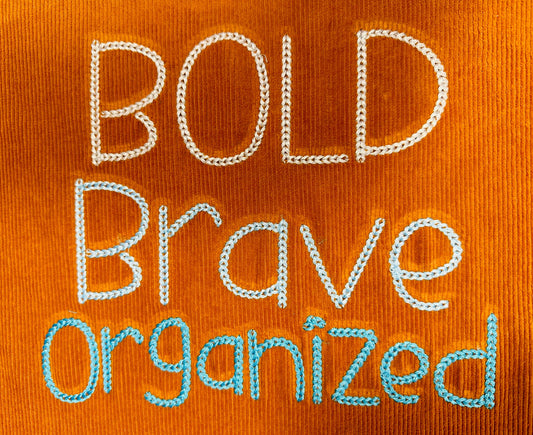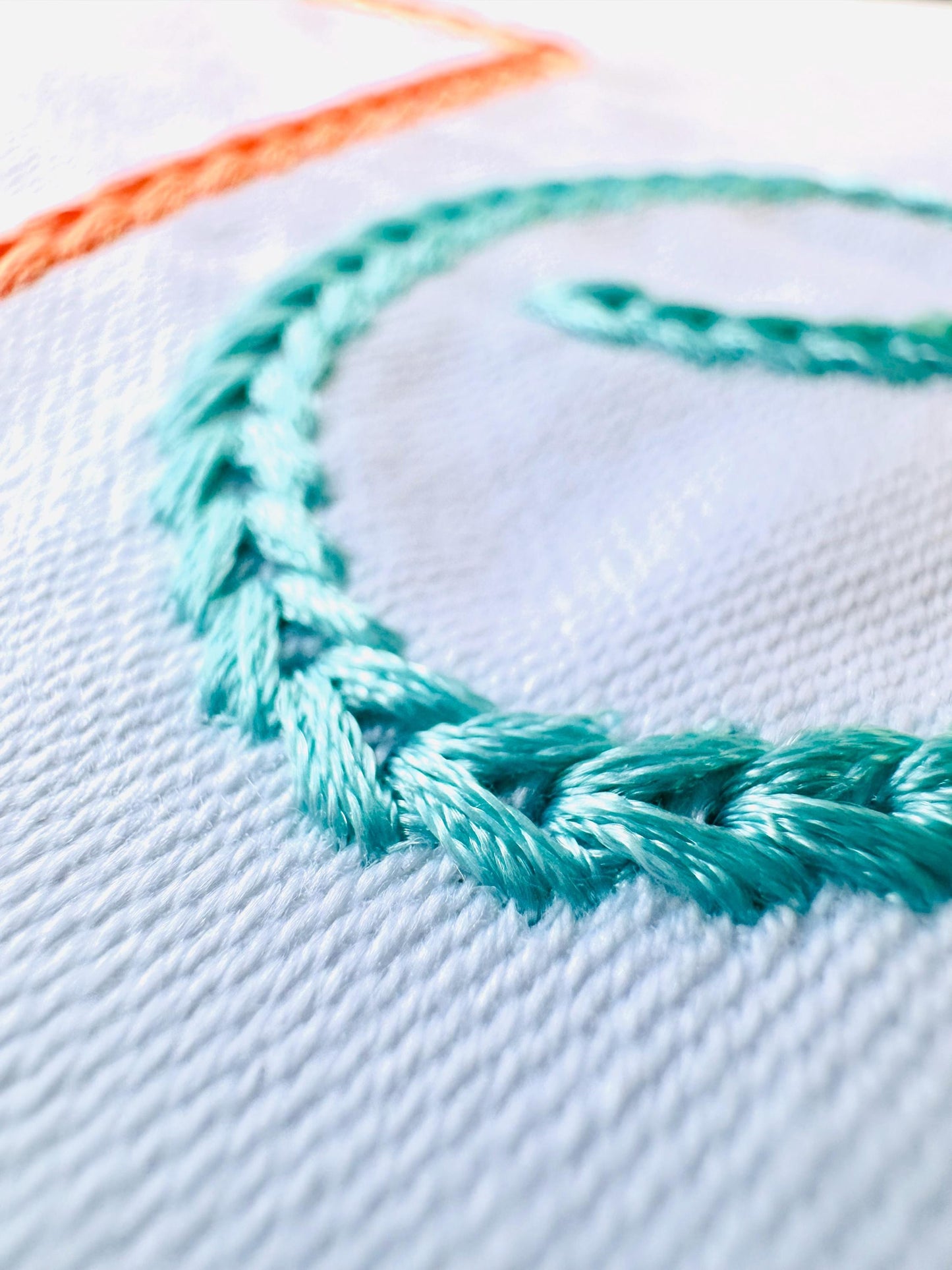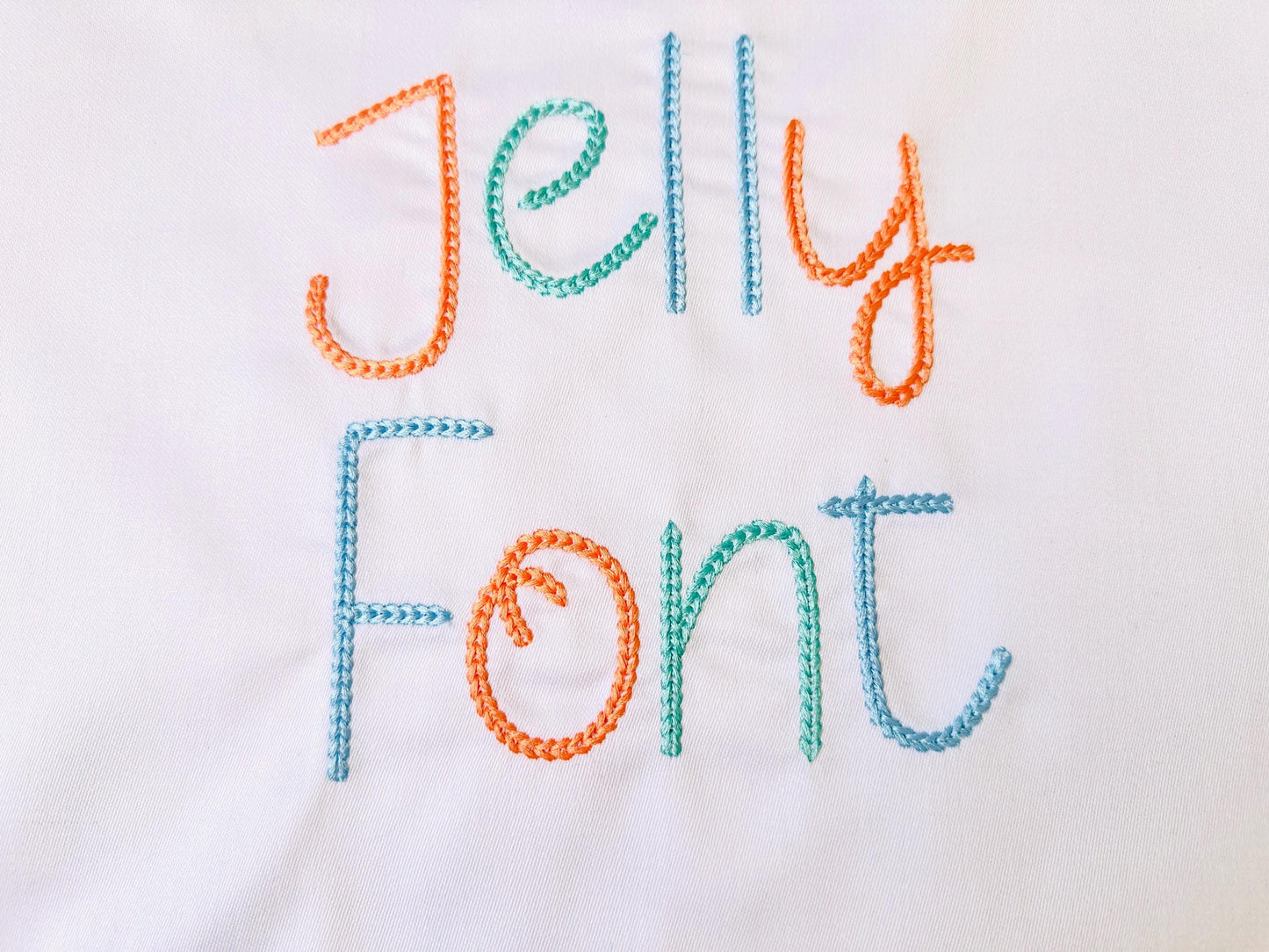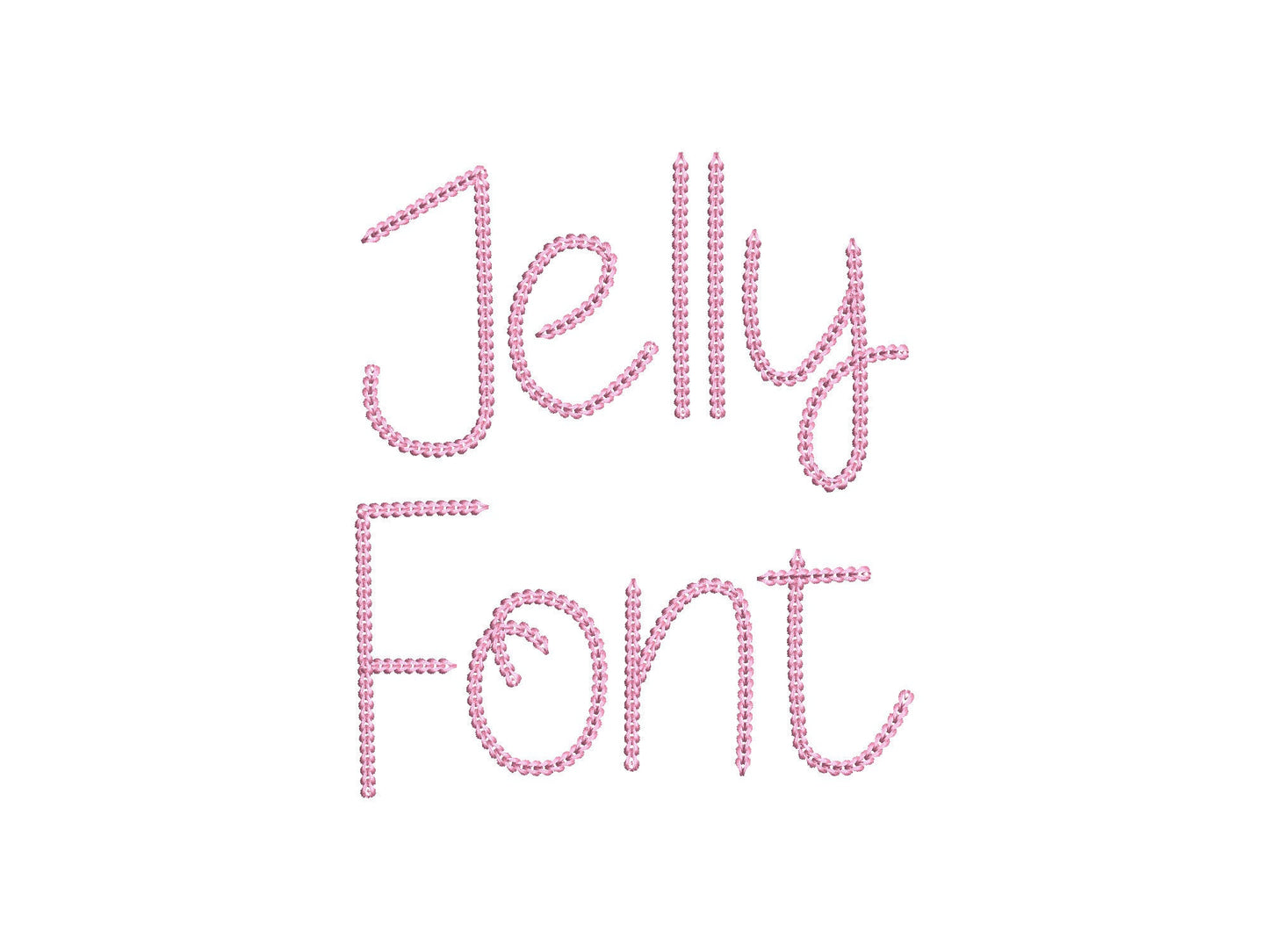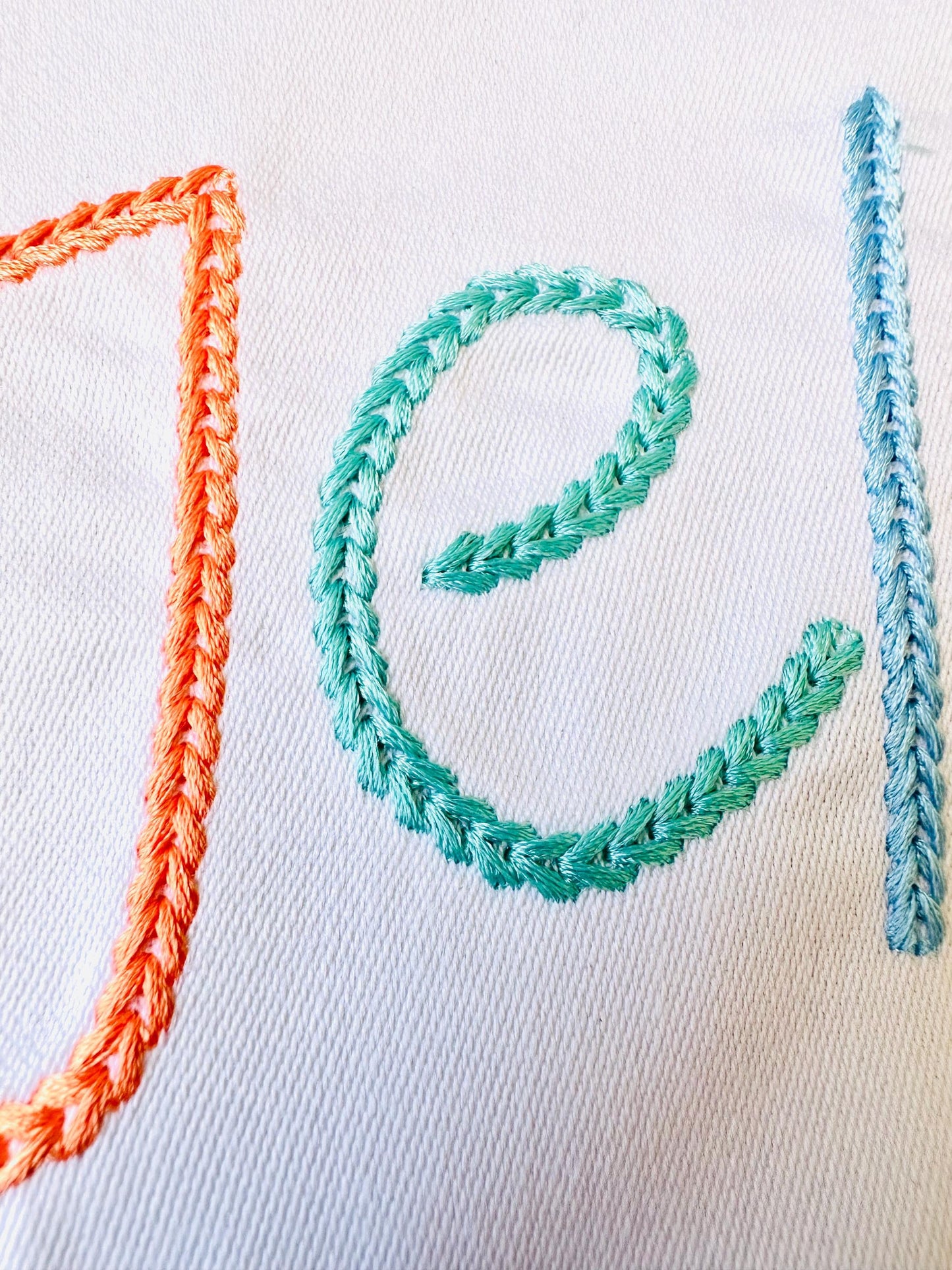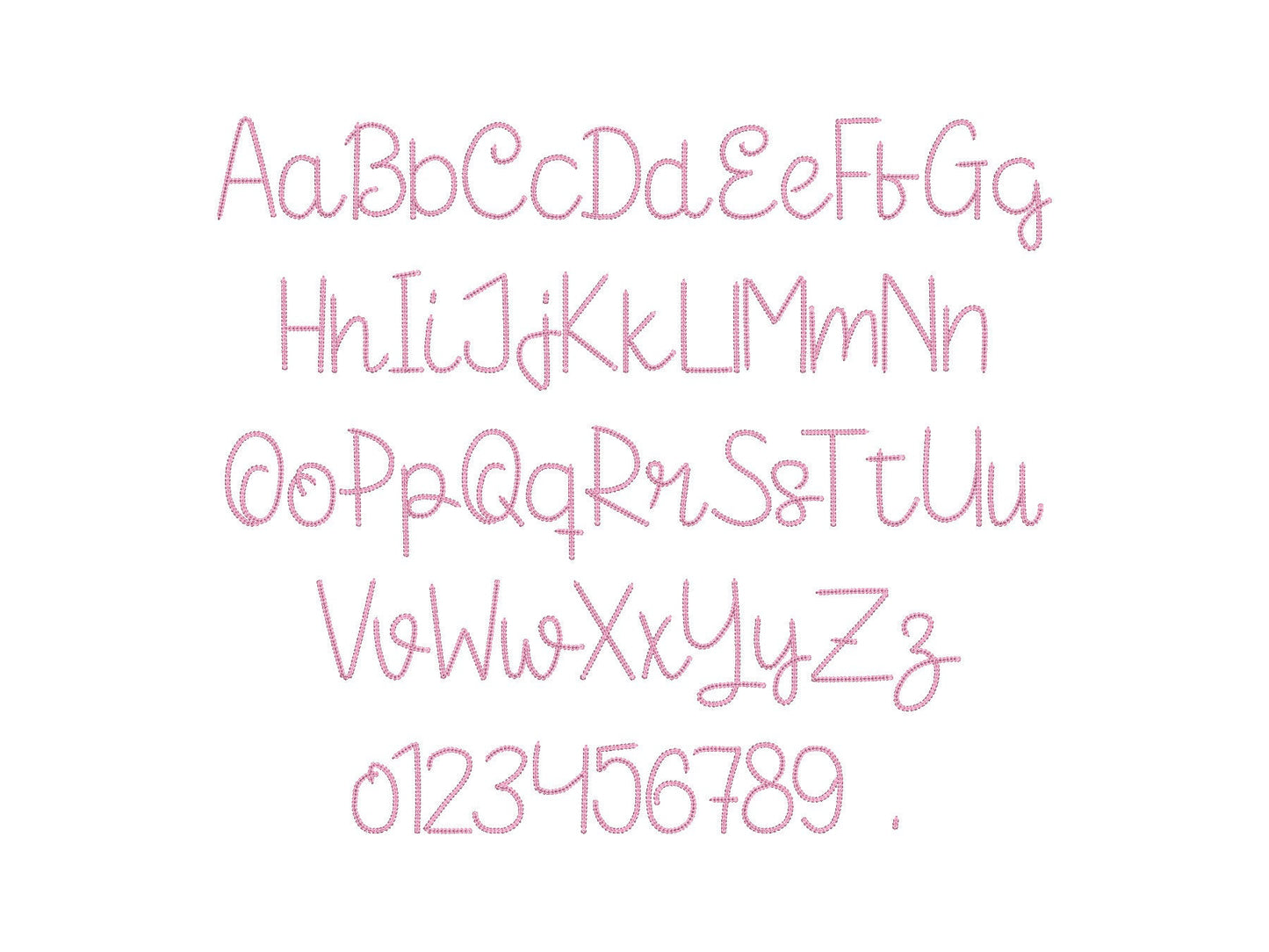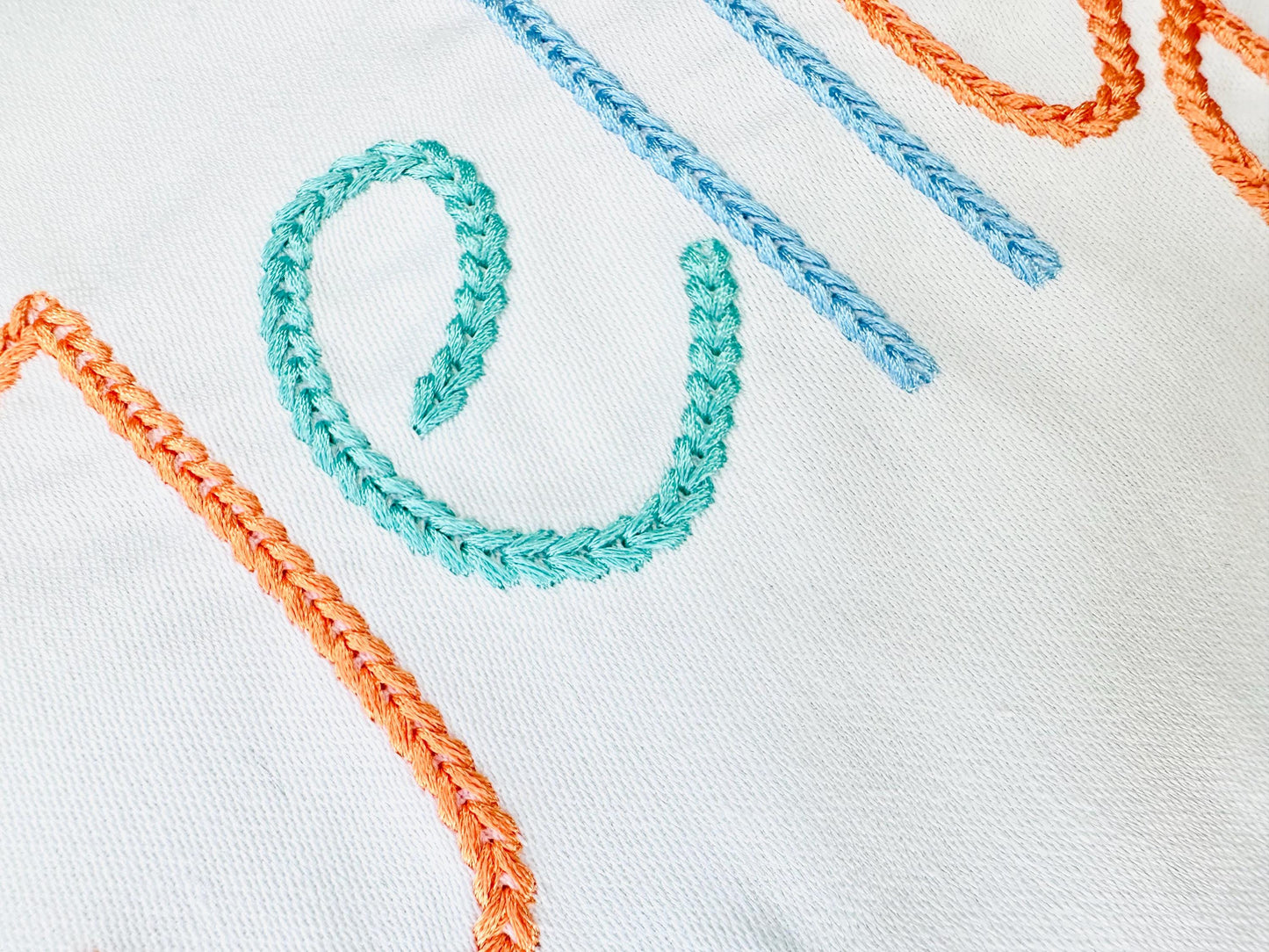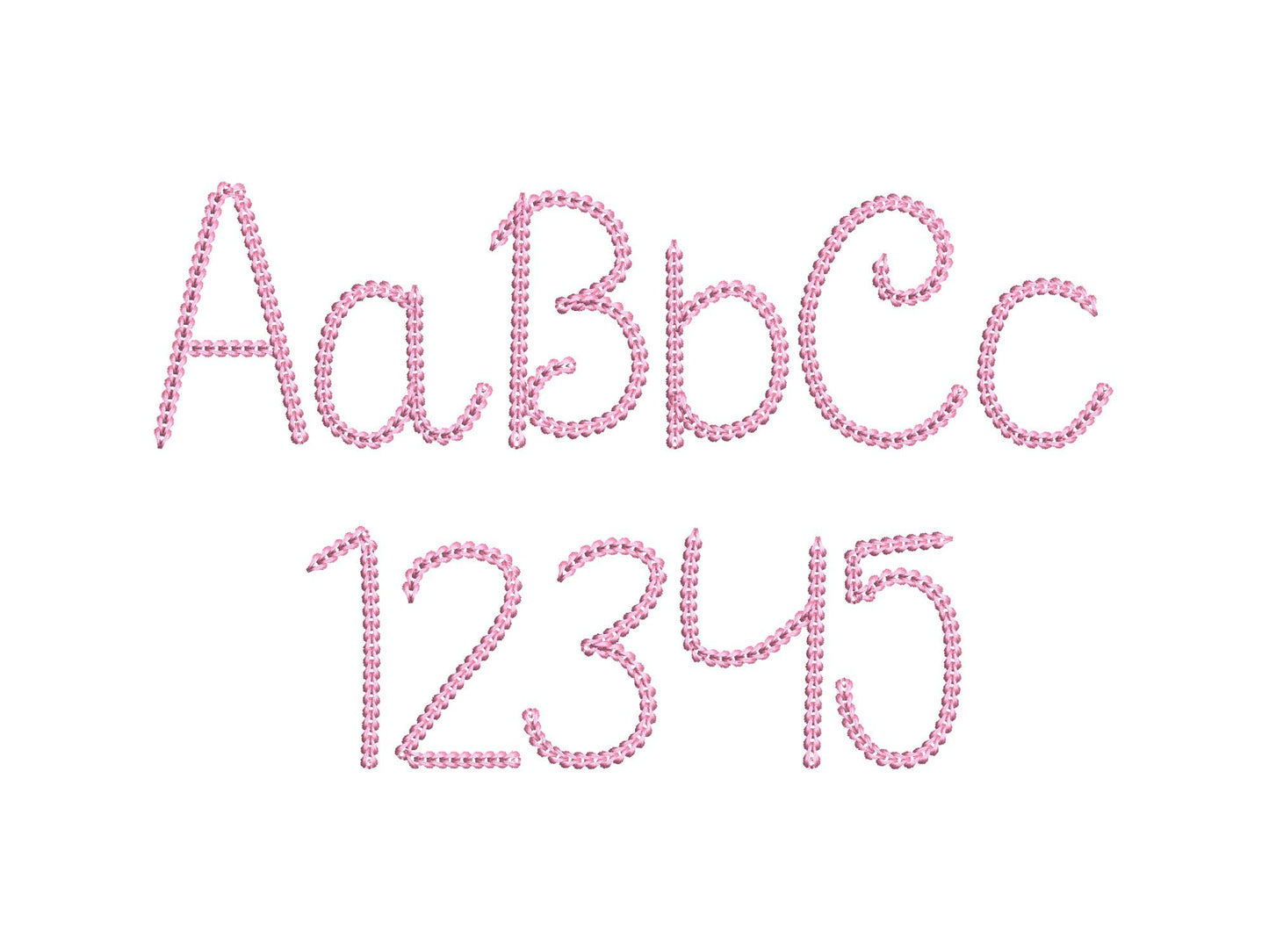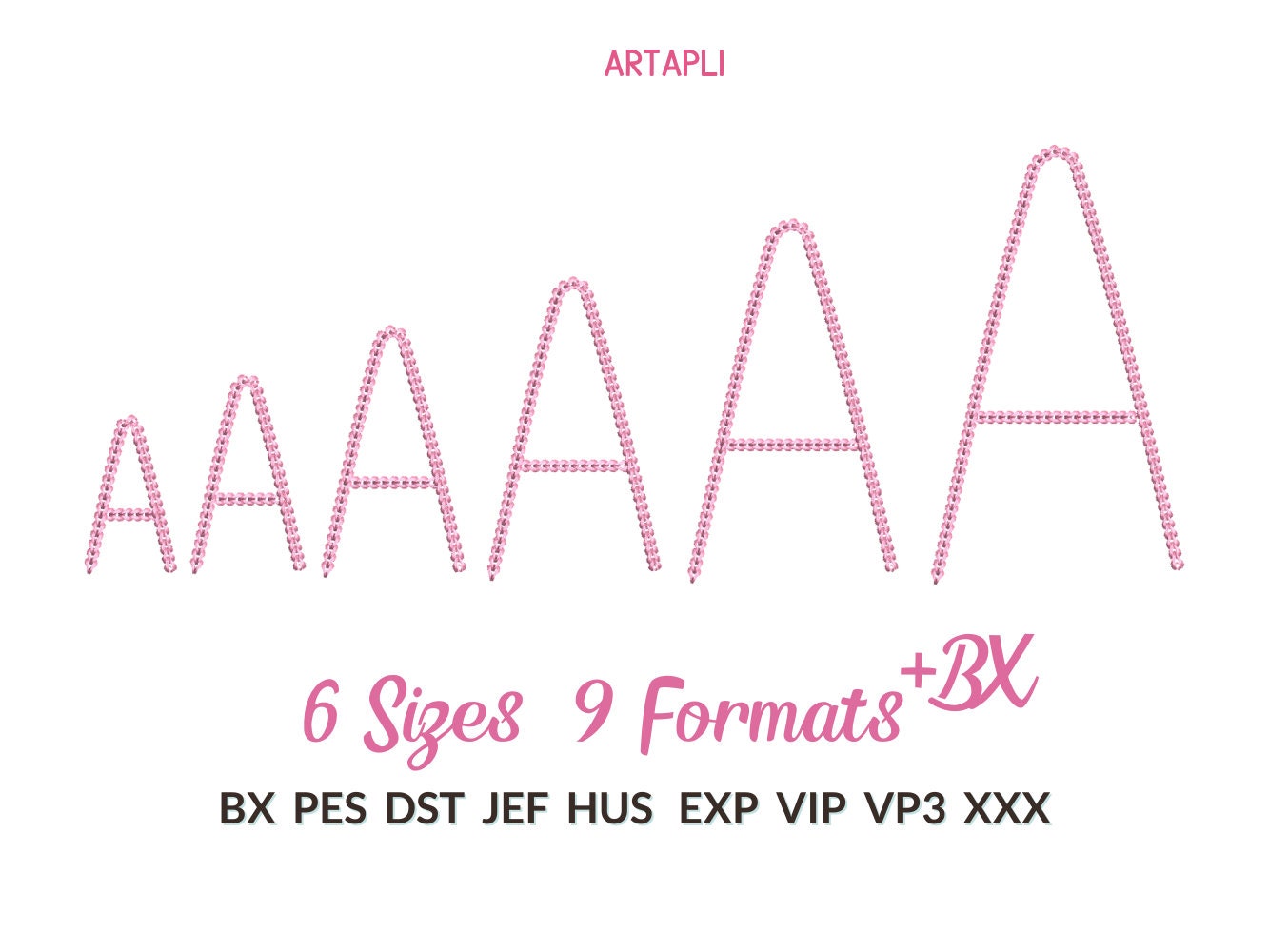
Bold Chain Stitch Font Jelly
Or click to open the linkA bold, dense chain stitch font in medium and big sizes, with a hand-knit sweater look, for names on sweaters and jackets.
Uppercase and lowercase letters, numbers and a period in six sizes: 2.3, 2.9, 3.6, 4.2, 5.3 and 6.4 inches.
- Bold dense chain stitch font
- Uppercase, lowercase, numbers 0-9, period
- 6 sizes, 2.3 to 6.4 in